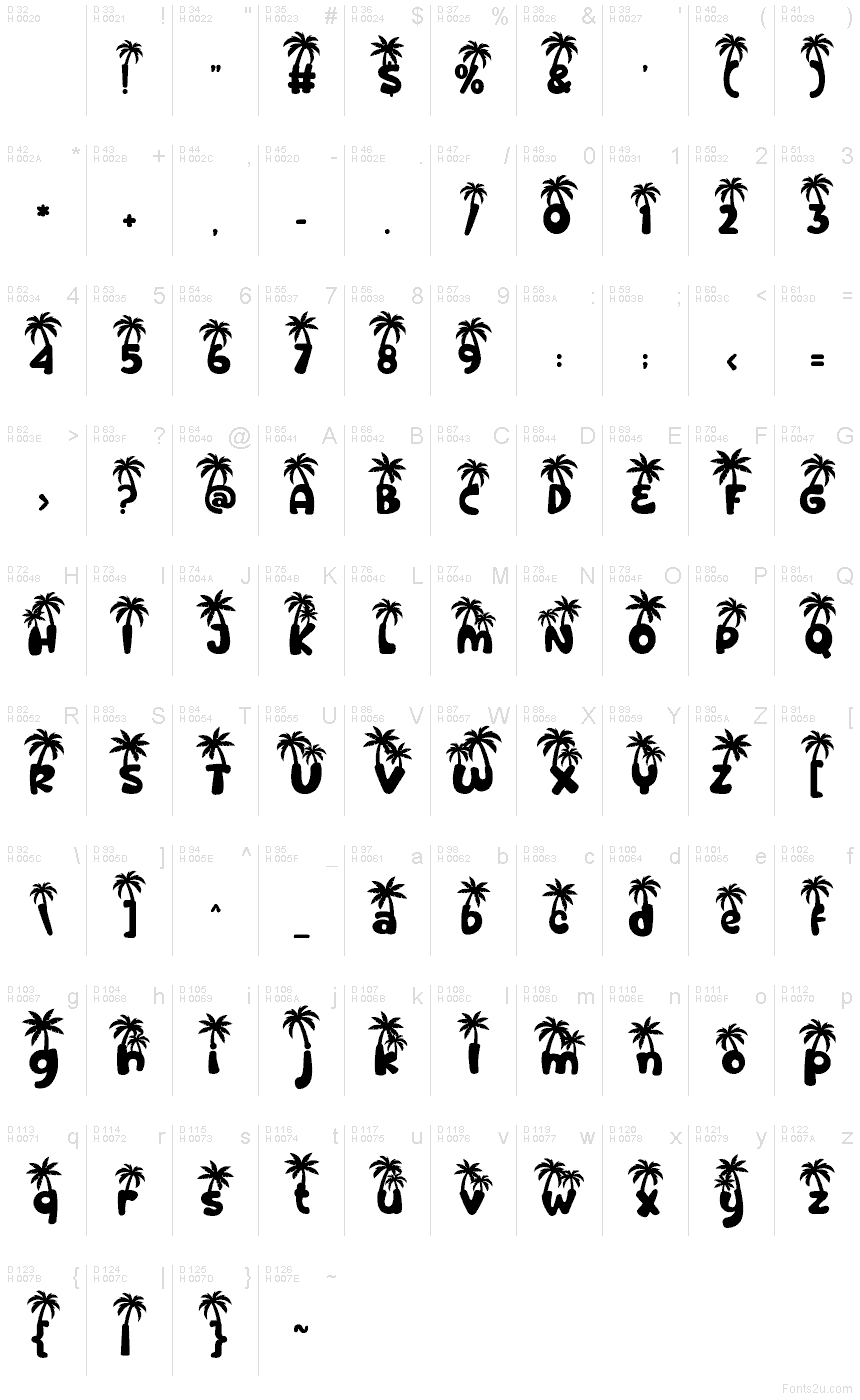
Sandy Toes Palm
Sandy Toes font by PutraCetol Studio is a decorative display typeface that combines the beauty of organic shapes with a boldness unusual to these fonts. Its casual appeal creates an overall whimsical mood. The varied decorative details incorporated in its design generate an immediate tropical effect reminiscent of sunny beaches and palm trees.
This free display font is vibrant and friendly, which makes it applicable to books and magazines for children, invitations, posters, titles of digital publications, movie posters, video games themes on trips and vacations websites or tourist businesses, etc.